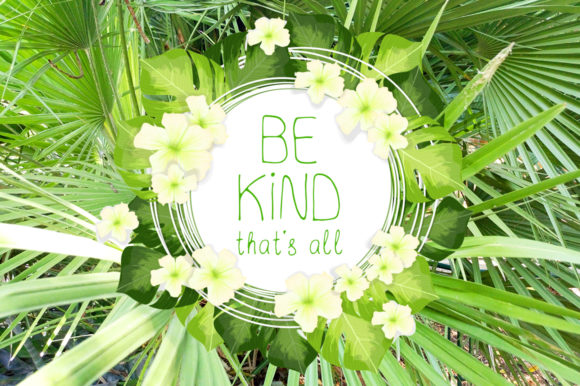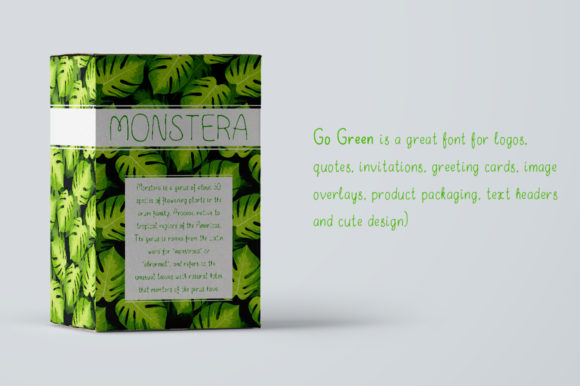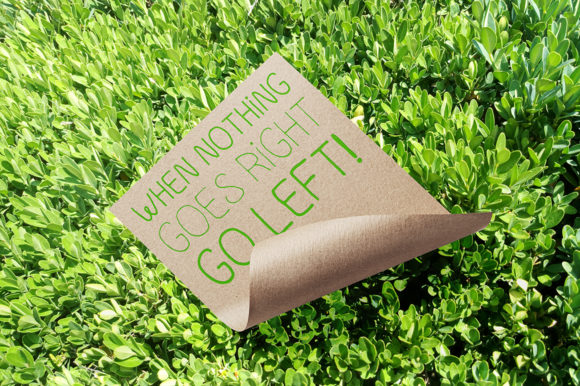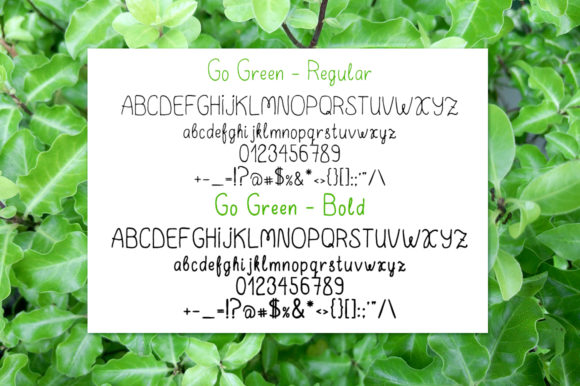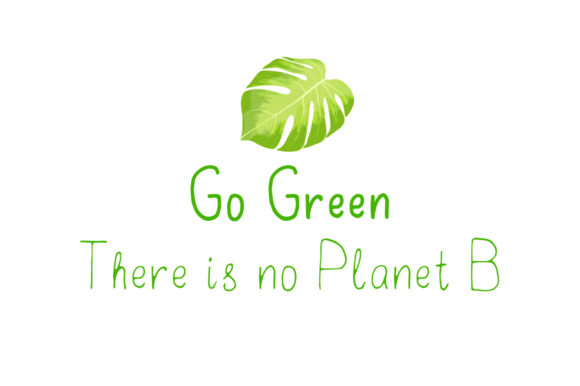
Go Green Font: Elevate Your Designs with a Fun and Elegant Typeface
In the world of design, typography plays a vital role in conveying messages, expressing creativity, and capturing the audience’s attention. For designers and crafters seeking a unique and versatile font, the Go Green Font is an excellent choice. This fun and elegant typeface offers a regular and bold style, allowing you to create multiple unique designs with just this one font.
What is Go Green Font?
The Go Green Font is a modern, eco-friendly typeface designed to inspire creativity and add a touch of elegance to your projects. Its clean lines, subtle curves, and balanced proportions make it perfect for a wide range of applications, from digital designs to print materials.
Key Features of Go Green Font
- Regular and Bold Styles: The Go Green Font comes in two styles, regular and bold, giving you the flexibility to create visual hierarchies, add emphasis, and experiment with different design combinations.
- Fun and Elegant: This font seamlessly blends playfulness with sophistication, making it suitable for designs that require a touch of whimsy or a professional look.
- Highly Versatile: The Go Green Font can be used in various design contexts, including logos, headings, titles, posters, flyers, and more.
- Eco-Friendly: As its name suggests, the Go Green Font is designed with eco-friendliness in mind, making it perfect for projects focused on sustainability and environmental awareness.
Use Cases for Go Green Font
The Go Green Font’s versatility makes it an excellent choice for a wide range of design projects. Here are some use cases to get you started:
- Logos and Branding: Create a memorable brand identity with the Go Green Font, perfect for eco-friendly businesses, sustainable products, or environmentally conscious services.
- Posters and Flyers: Grab attention with bold and eye-catching headings, and add a touch of elegance to your promotional materials.
- Digital Designs: Use the Go Green Font in social media graphics, website headers, and email newsletters to add a professional and modern touch.
- Crafting and DIY Projects: Add a personal touch to your handmade creations, such as signs, labels, and cards, with the Go Green Font’s fun and elegant style.
Tips for Using Go Green Font
To get the most out of the Go Green Font, consider the following tips:
- Experiment with Font Combinations: Pair the Go Green Font with other fonts to create unique and visually appealing designs.
- Play with Font Sizes: Use different font sizes to create visual hierarchies and add emphasis to your text.
- Add Colors and Textures: Enhance your designs by adding colors and textures that complement the Go Green Font’s eco-friendly and elegant style.
The Go Green Font is a fun and elegant typeface that offers a world of creative possibilities for designers and crafters. Its regular and bold styles, versatility, and eco-friendly design make it an excellent choice for a wide range of projects. Whether you’re looking to create a professional brand identity or add a personal touch to your handmade creations, the Go Green Font is sure to inspire your designs and help you go green in style.